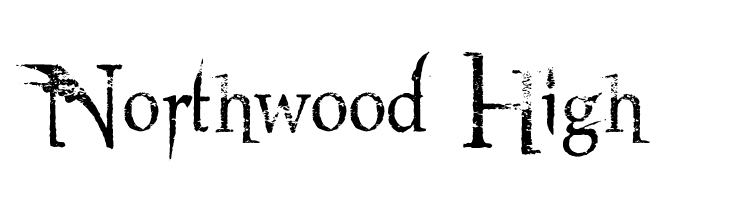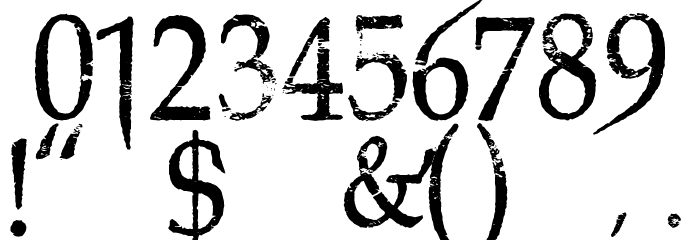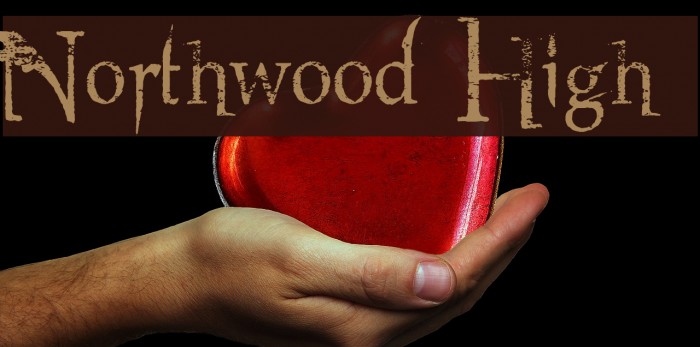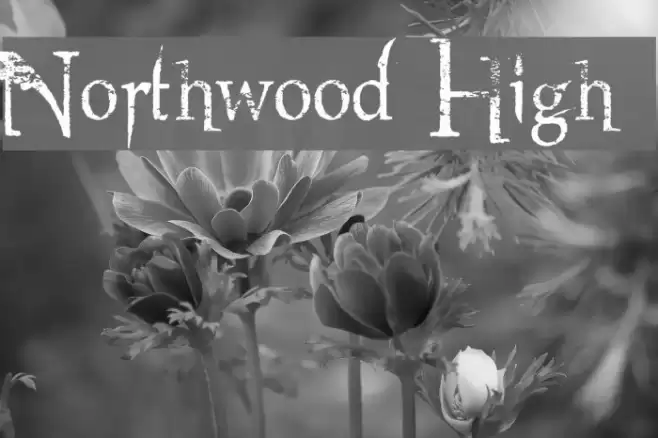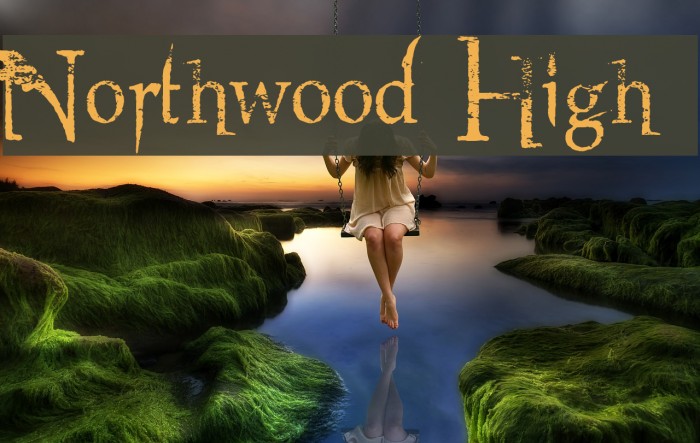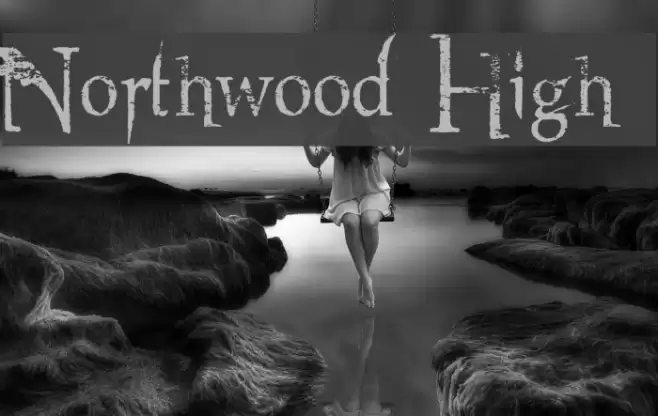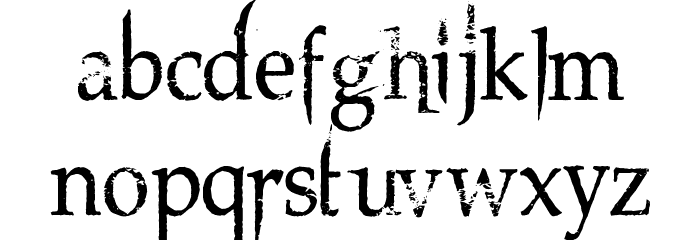
Northwood High Font
Northwood High Description
This font features a distressed, weathered appearance, giving it a vintage and rustic feel. The characters are serifed, with varying stroke widths that add to the aged look. The uppercase letters are bold and prominent, while the lowercase letters maintain a consistent style with slightly more delicate strokes. Numbers and special characters follow the same distressed aesthetic, making the font cohesive across all elements. The texture suggests a hand-crafted or printed quality, ideal for projects that require a touch of nostalgia or a rugged, organic vibe.
| Overall Style | Vintage |
| Use Case | Headlines, Logos, Artistic projects |
| Proposed Projects | Ideal for vintage-themed posters, rustic branding, book covers, and artistic projects that require a textured, aged look. |